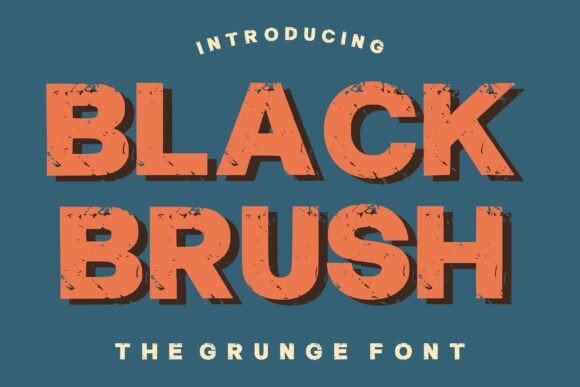
The Power of Black Brush Font: Unleashing Your Creative Potential
I’ll never forget the time I was working on a project for a client who wanted a bold, vintage-inspired font to give their brand a rebellious edge. I scoured the internet for hours, trying to find the perfect typeface, but nothing seemed quite right. That was until I stumbled upon Black Brush Font. With its distressed texture and thick, bold lettering, it was love at first sight! ✨ In this article, I’ll share my experience with Black Brush Font, its features, and how to make the most of it in your designs.
An Honest Review of Black Brush Font
- 💥 Bold and eye-catching: Black Brush Font is designed to stand out, making it perfect for posters, album covers, and social media graphics.
- 🌟 Distressed texture: The font’s rugged texture adds a layer of depth and authenticity to your designs.
- 📚 Versatile: Black Brush Font can be used for a wide range of projects, from branding to packaging and t-shirts.
- 👍 Readability: Despite its bold and distressed texture, the font remains surprisingly readable.
While Black Brush Font is an amazing typeface, there are a few things to keep in mind: 🤔
- ⚠️ Limited use cases for fine print: Due to its bold nature, Black Brush Font may not be the best choice for body text or fine print.
- ⚠️ May not be suitable for very small sizes: The font’s distressed texture can become pixelated or blurry at very small sizes.
A Practical Guide to Using Black Brush Font
The Backstory of Black Brush Font
Black Brush Font was designed with the intention of capturing the raw energy of the streets. Its creator, a passionate typographer, drew inspiration from vintage posters, graffiti, and urban art. The result is a font that’s both rebellious and authentic. 💥
Q: What type of projects is Black Brush Font best suited for?
A: Black Brush Font is perfect for bold, eye-catching projects like posters, album covers, social media graphics, and branding.
Q: Can I use Black Brush Font for body text?
A: While Black Brush Font is readable, it’s not ideal for body text due to its bold nature. It’s best used for headlines or titles.
Q: Is Black Brush Font available in different weights or styles?
A: Yes, Black Brush Font comes in a range of weights and styles, allowing you to experiment with different looks and feels.